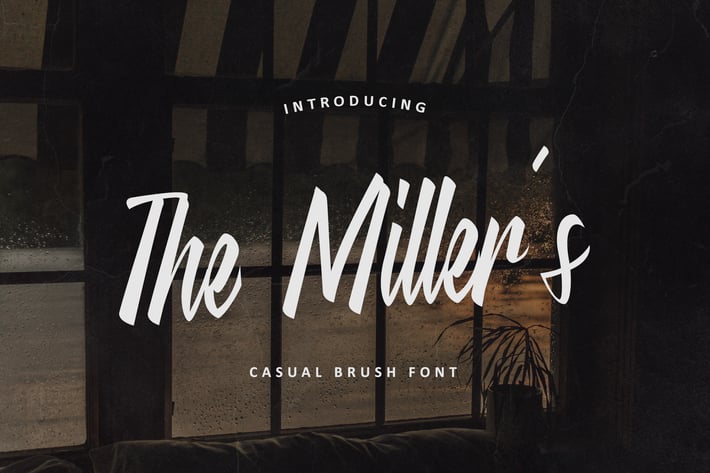
The Miller’s – Casual Brush Font
The Miller’s is a modern and casual script brush handwritten font. Its casual charm makes it appear wonderfully down-to-earth, readable and, ultimately, incredibly versatile.
– Lowercase
– Alternates
– Ligature
– Multilingual Support